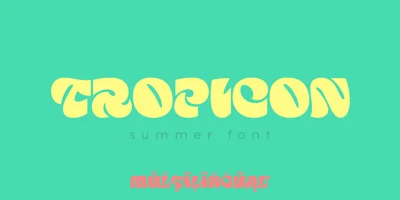
Tropicon
Tropicon Font
Tropicon Font is perfect for tropical resort branding, Caribbean restaurant menus, beach vacation campaigns, tiki bar signage, summer festival posters, tropical fruit packaging, island tourism materials, and vibrant paradise-themed design projects.
What makes Tropicon Font exciting is its exotic paradise appeal that captures the vibrant energy and carefree spirit of tropical destinations through lively, sun-soaked letterforms. This tropical typeface features warm character construction with flowing curves that evoke the swaying palm trees and crystal-clear waters of island getaways, making it ideal for brands seeking to communicate escape, relaxation, and the intoxicating allure of tropical paradise in their vacation communications.
The Tropicon Font family includes regular and bold weights, plus tropical variations and paradise-inspired decorative elements that enhance the island aesthetic with beach styling options and tropical vacation typography elements for resort applications.
This vibrant typeface delivers exceptional tropical charm and vacation appeal, making Tropicon Font a valuable resource for hospitality and tourism industry projects. The font's paradise character makes it perfect for organizations wanting to evoke tropical escape and island relaxation in their marketing communications. Resort operators and tropical tourism boards particularly appreciate its ability to communicate vacation paradise and exotic destination appeal instantly to travelers seeking tropical experiences. The warmly designed letterforms ensure excellent readability while preserving the intoxicating appeal of tropical getaways across all applications from resort brochures to beach bar signage. Whether you're creating materials for Caribbean cruise lines or developing branding for tropical beach resorts, this font provides the perfect combination of exotic authenticity and commercial vacation appeal. Creative professionals consistently choose this typeface for projects requiring that ideal balance of tropical paradise messaging and tourism industry effectiveness, making it invaluable for vacation communications that celebrate both island culture and the therapeutic qualities of tropical escape experiences.